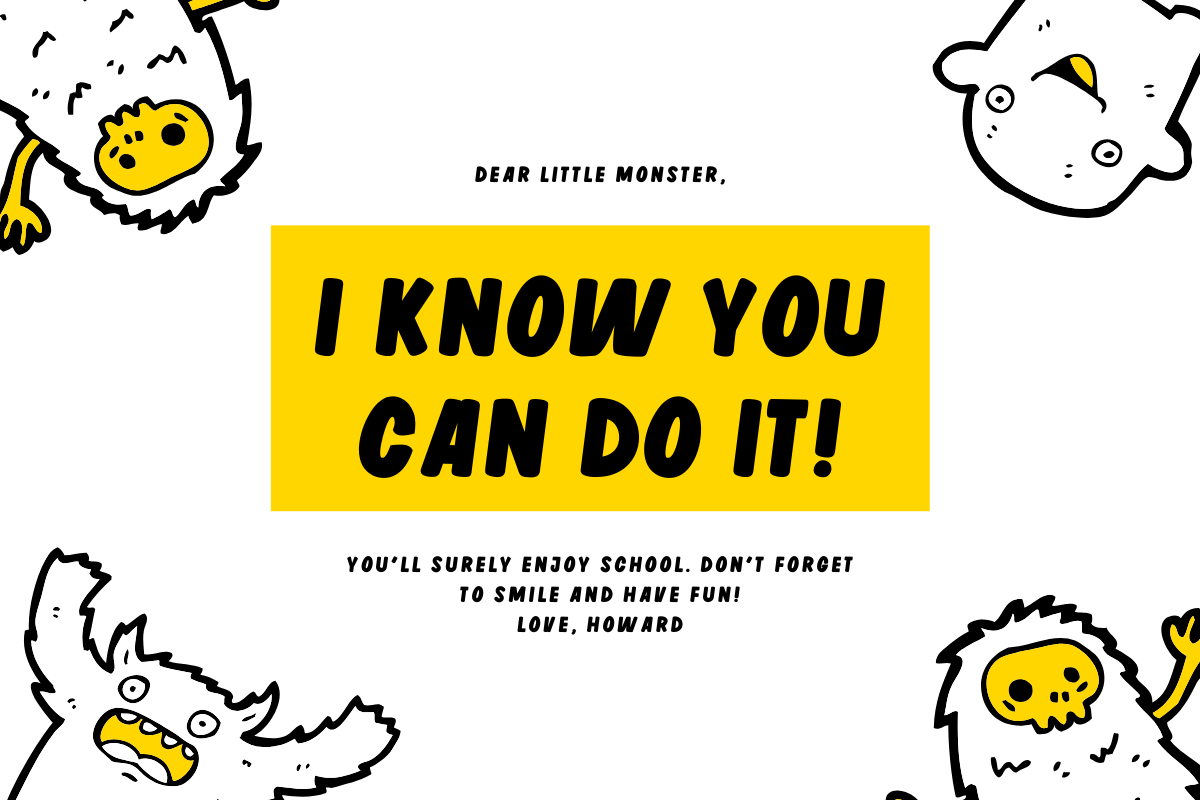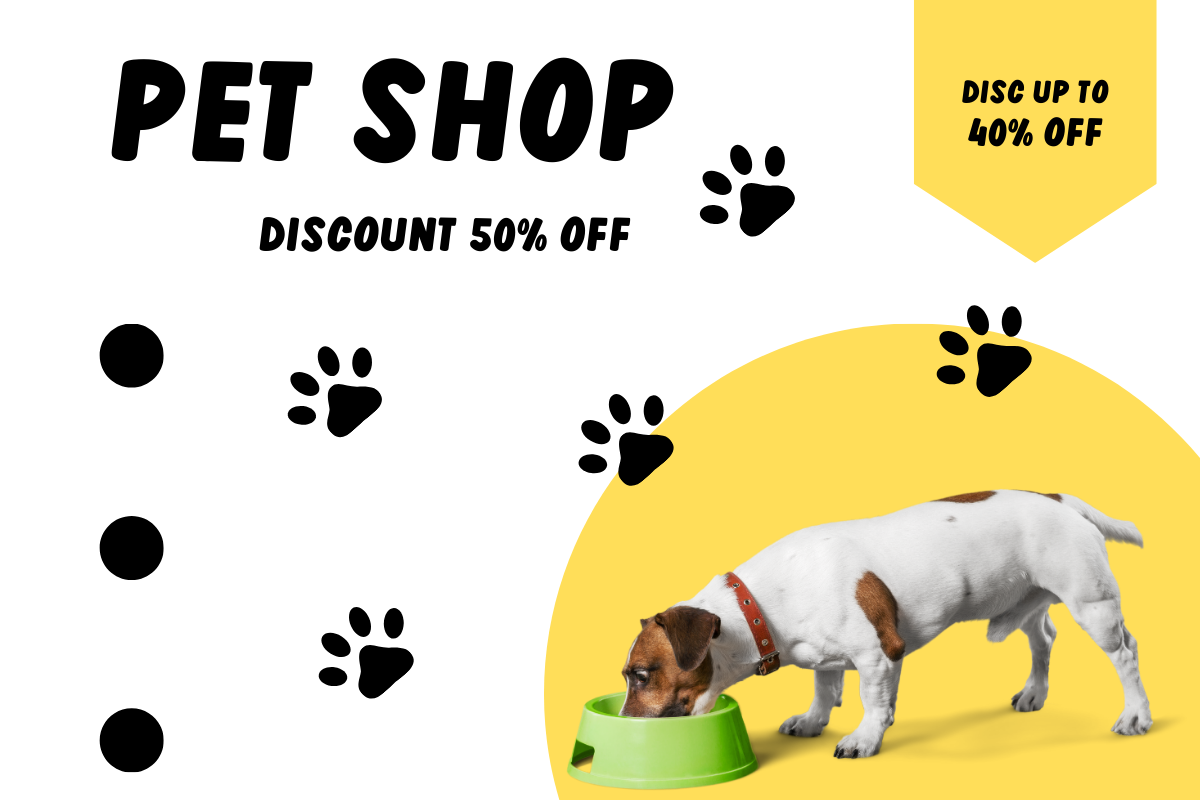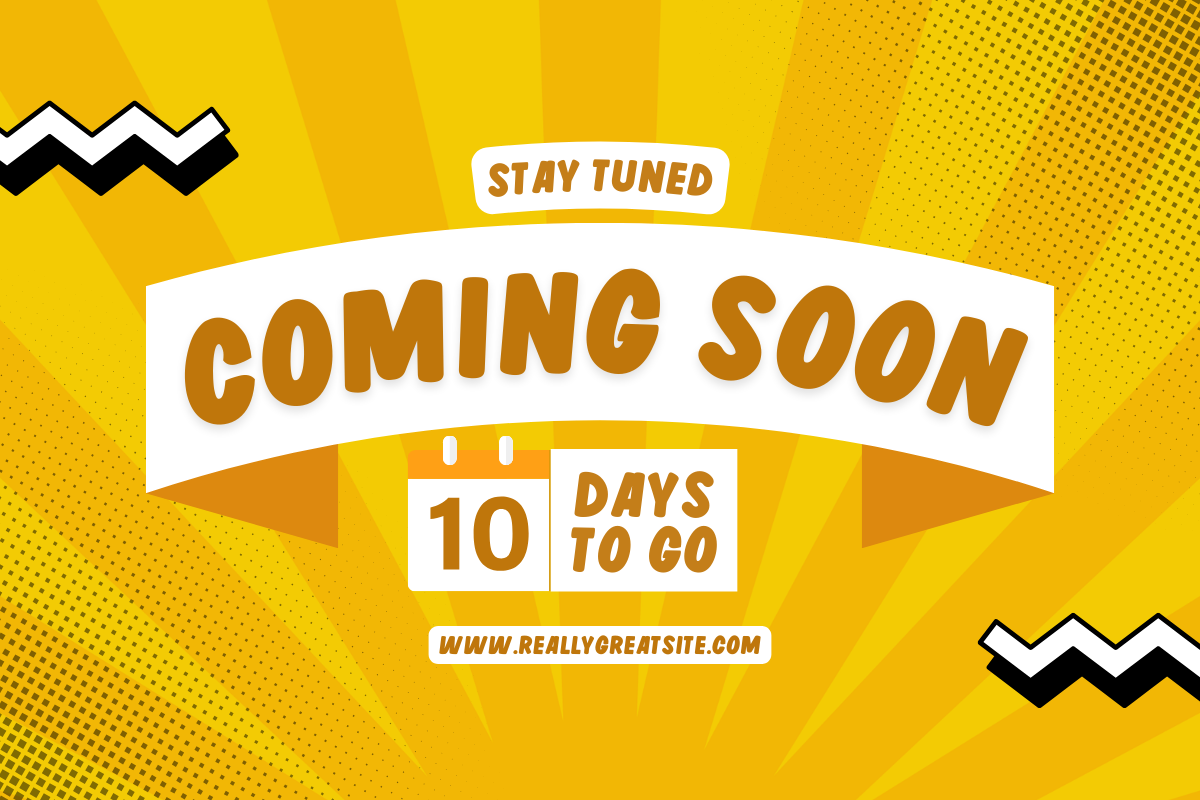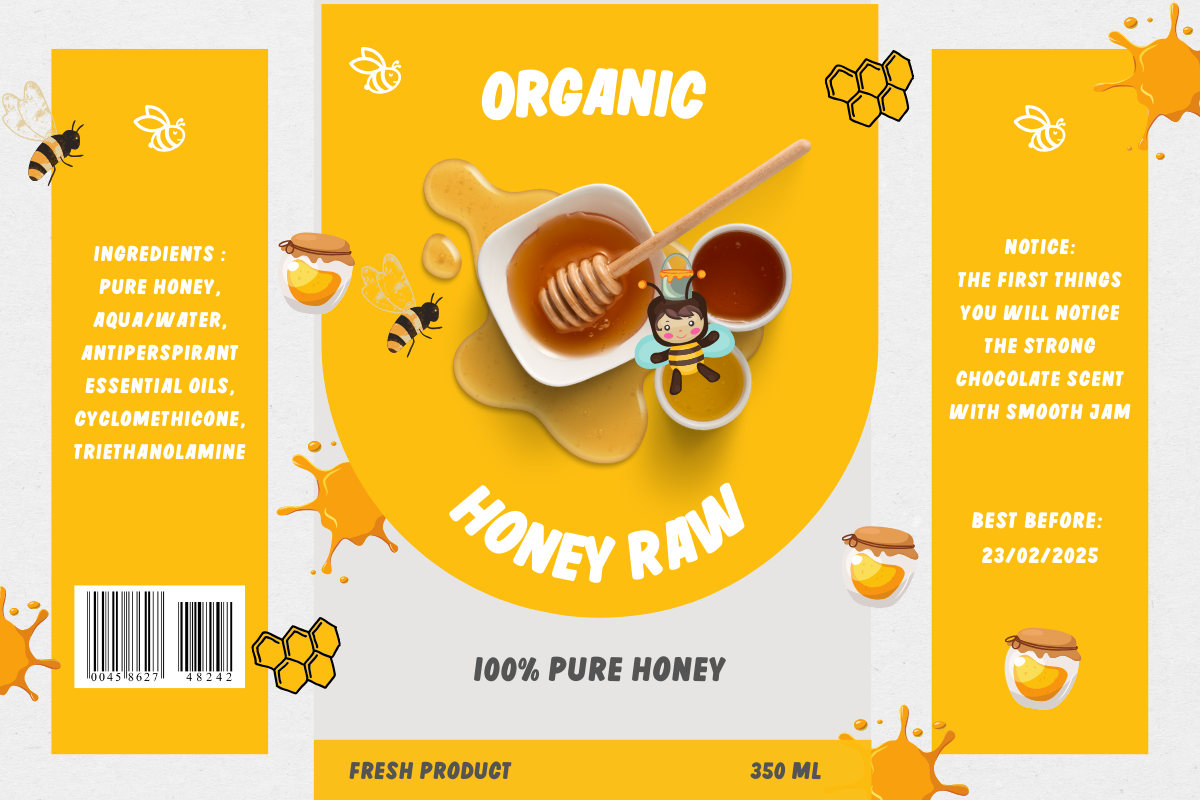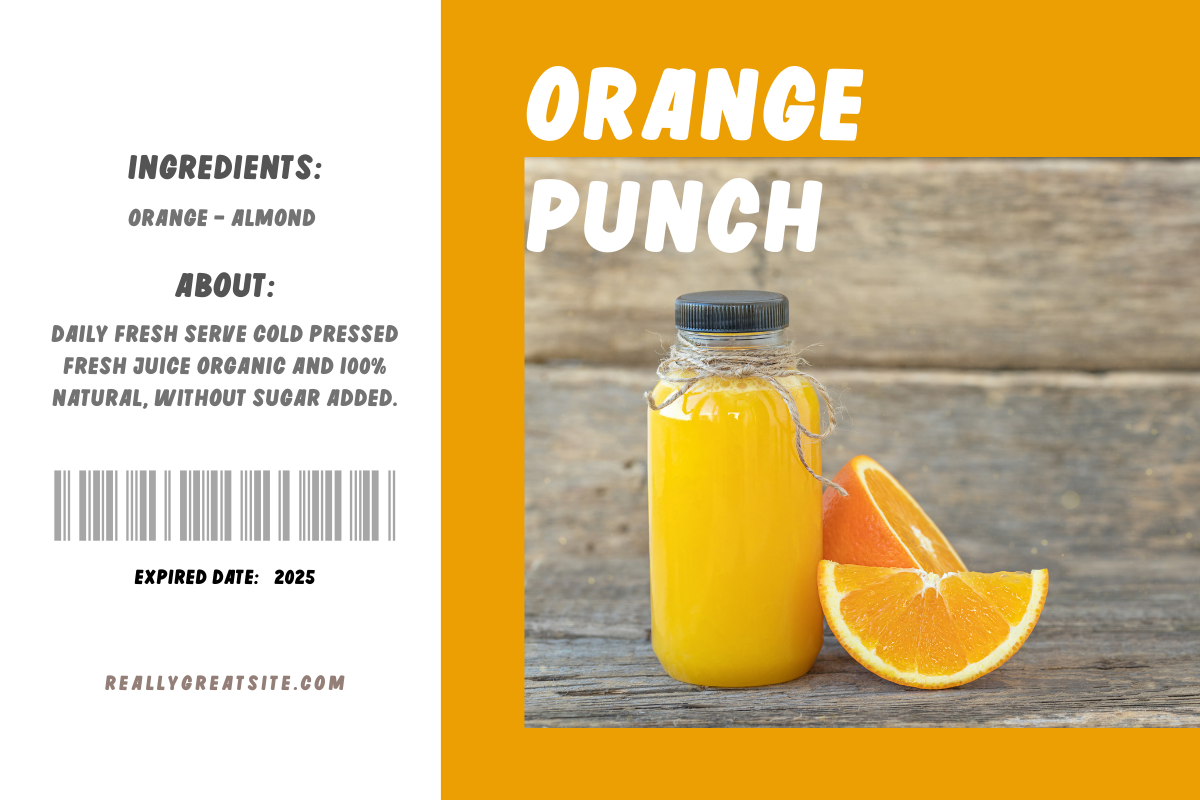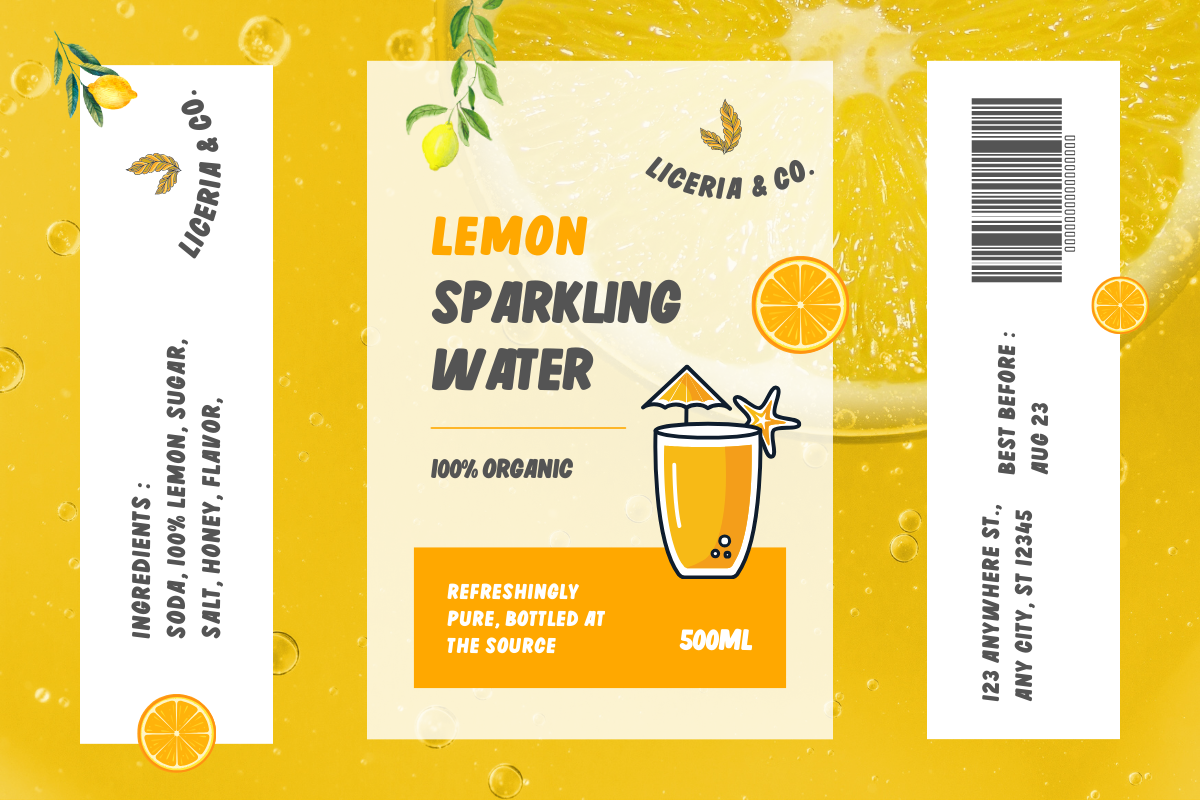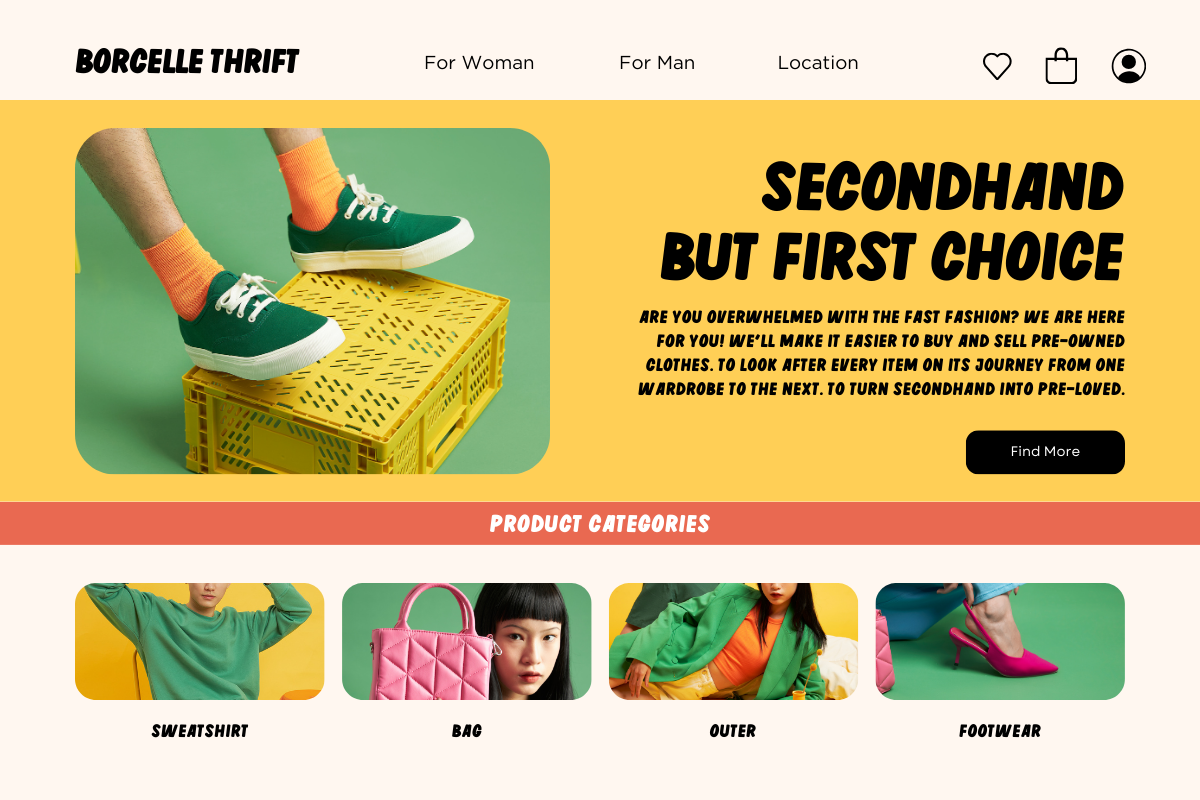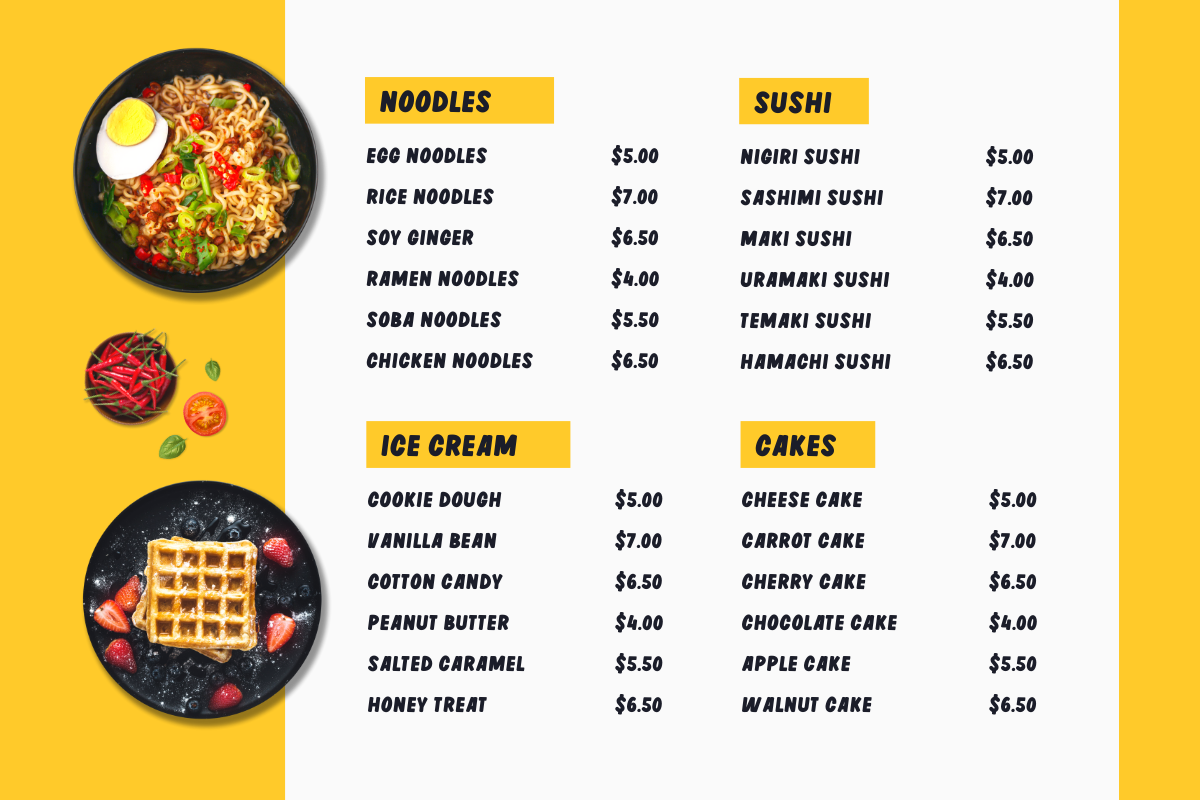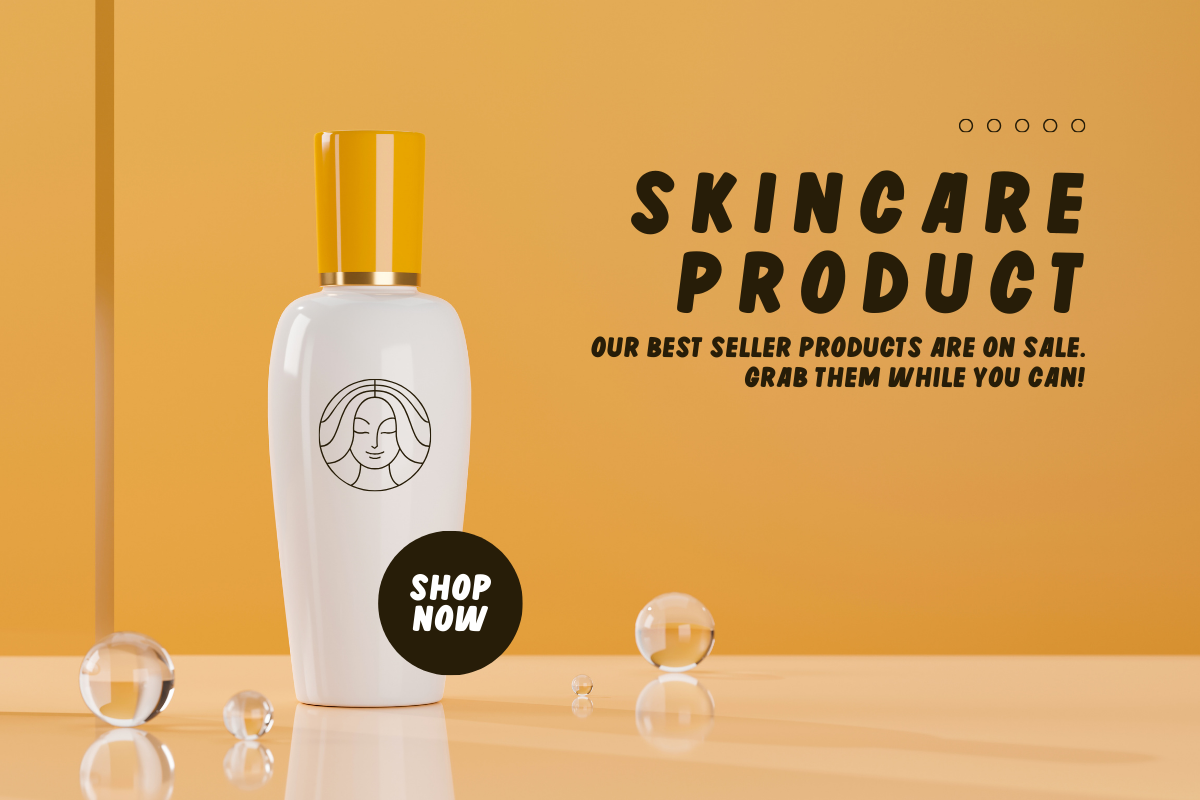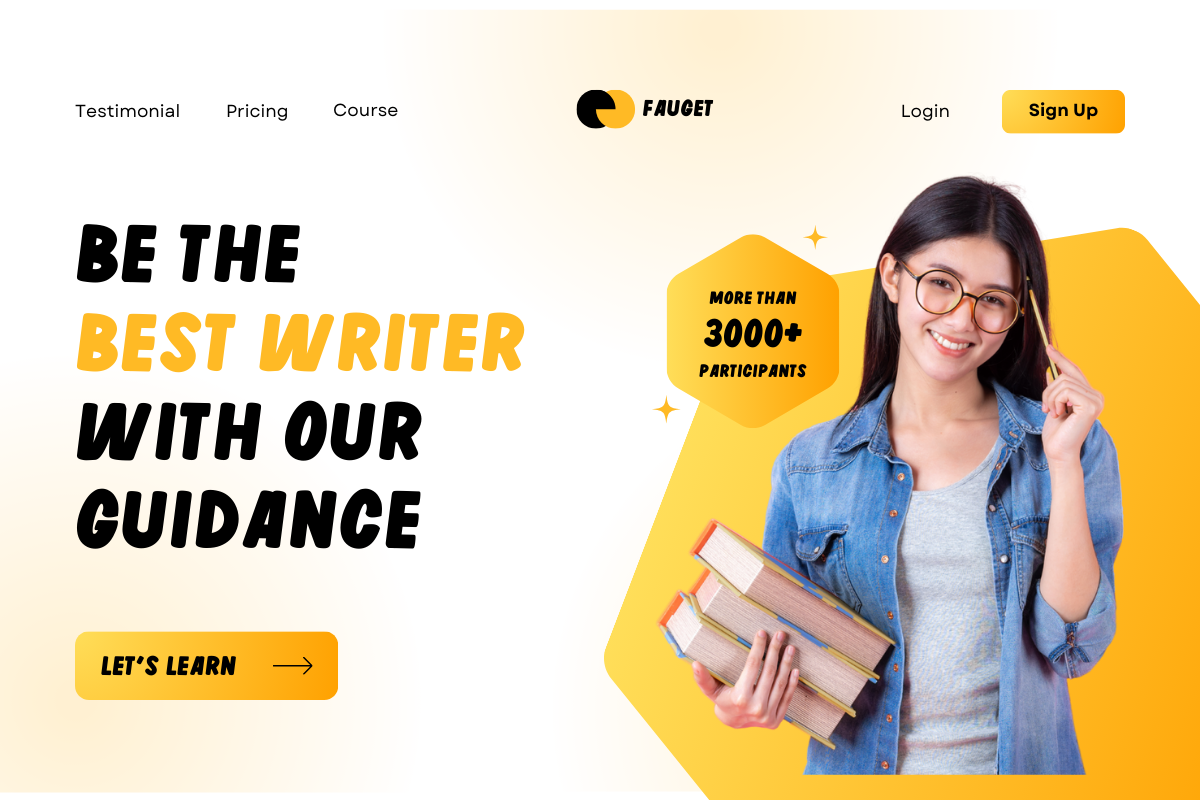
Rolling Egg – Display
Rolling Egg – Display Font is a handwritten display font that stands out with its unique all-caps characteristics. This font is designed to add a personal and dynamic touch to various design projects.
With its expressive and bold hand-drawn strokes, Rolling Egg is perfect for eye-catching headlines, creative posters, product packaging, branding, and designs that require a bold and energetic look.
The combination of irregular letter shapes and a natural feel makes this font ideal for projects that aim to convey a message with a warm and informal style.